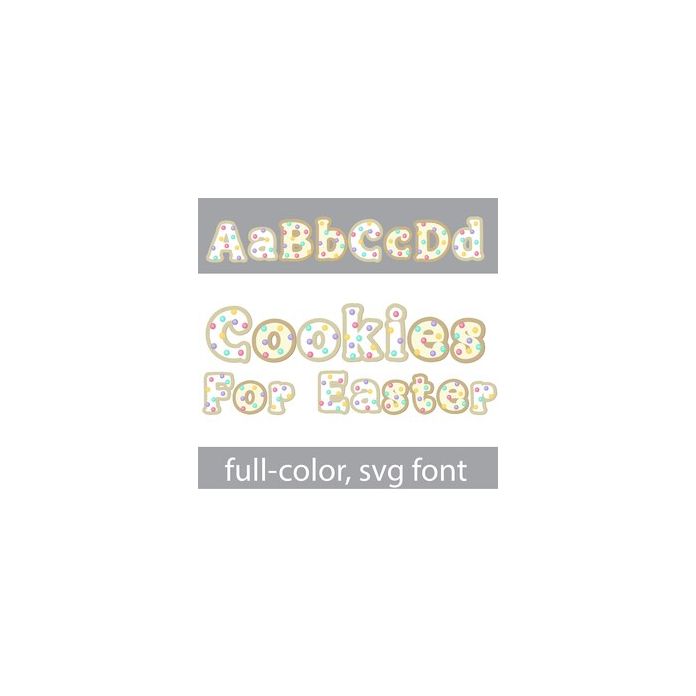
This full-color font features tasty cookies with pastel frosting and Easter-color sprinkles. There is an alt case w/ additional colors you can access through your system or Silhouette's glyph map.